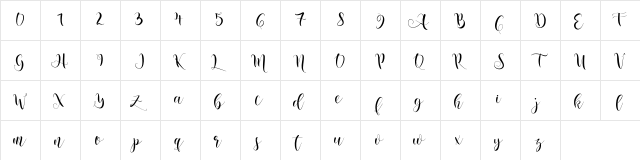
nicole script Regular Font Preview
nicole script Regular
nicole script Regular Font Details
Design Context for nicole script Typeface
nicole script brings a calligraphic fluidity to the page — its connecting strokes and expressive curves give it an unmistakably human quality.